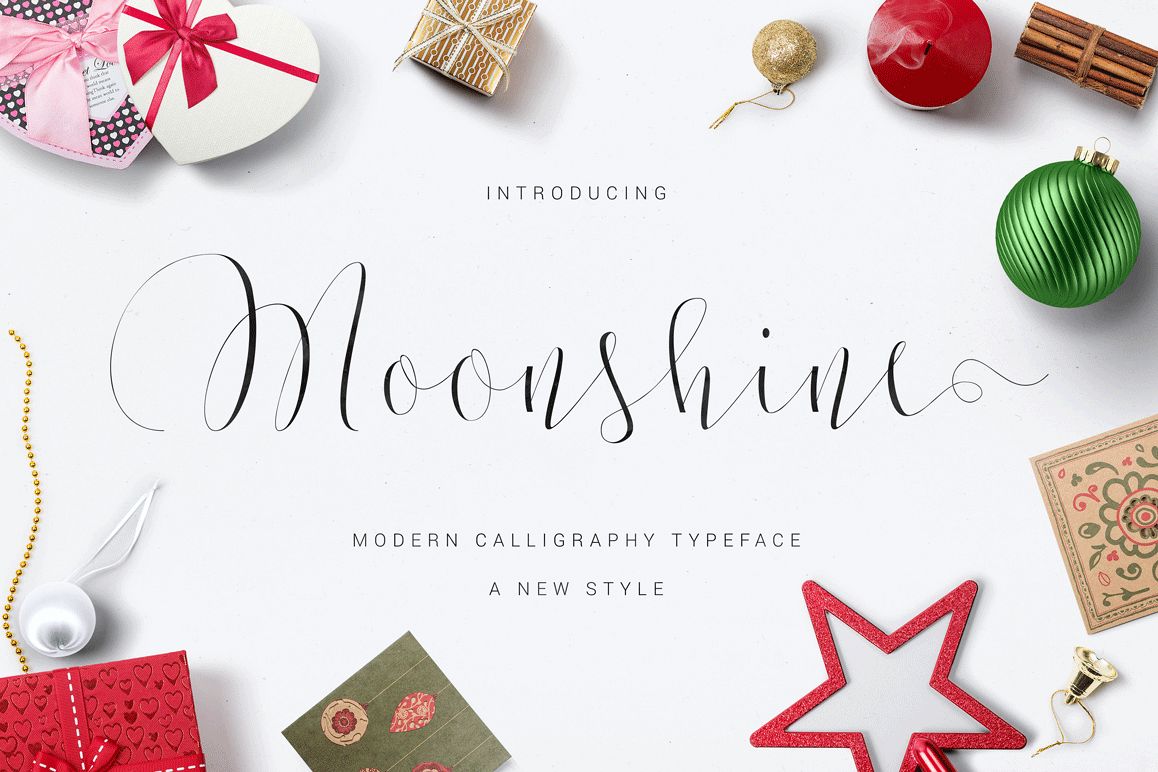
Moonshine Script
Introducing Moonshine Script
Moonshine Script is a new modern calligraphy Typeface Fonts, combines from copperplate to contemporary typeface, classic and elegant touch.
Moonshine Script features 358 glyphs and 174 alternate character contain with opentype features. Stylistic Alternates, Standart Ligature and more.You can access all those alternate characters by using OpenType savvy programs such as Adobe Illustrator, Adobe InDesign and CorelDraw X6-X7.
Moonshine Script is suitable for Apparel Brand, any greeting cards, Painting design style, or any design that needs natural and personal touch. Mix and match the alternate characters to add an attractive message to your design.
Features of Moonshine Script is;
- Swash Alternates
- Standart ligatures
- Stylistic sets